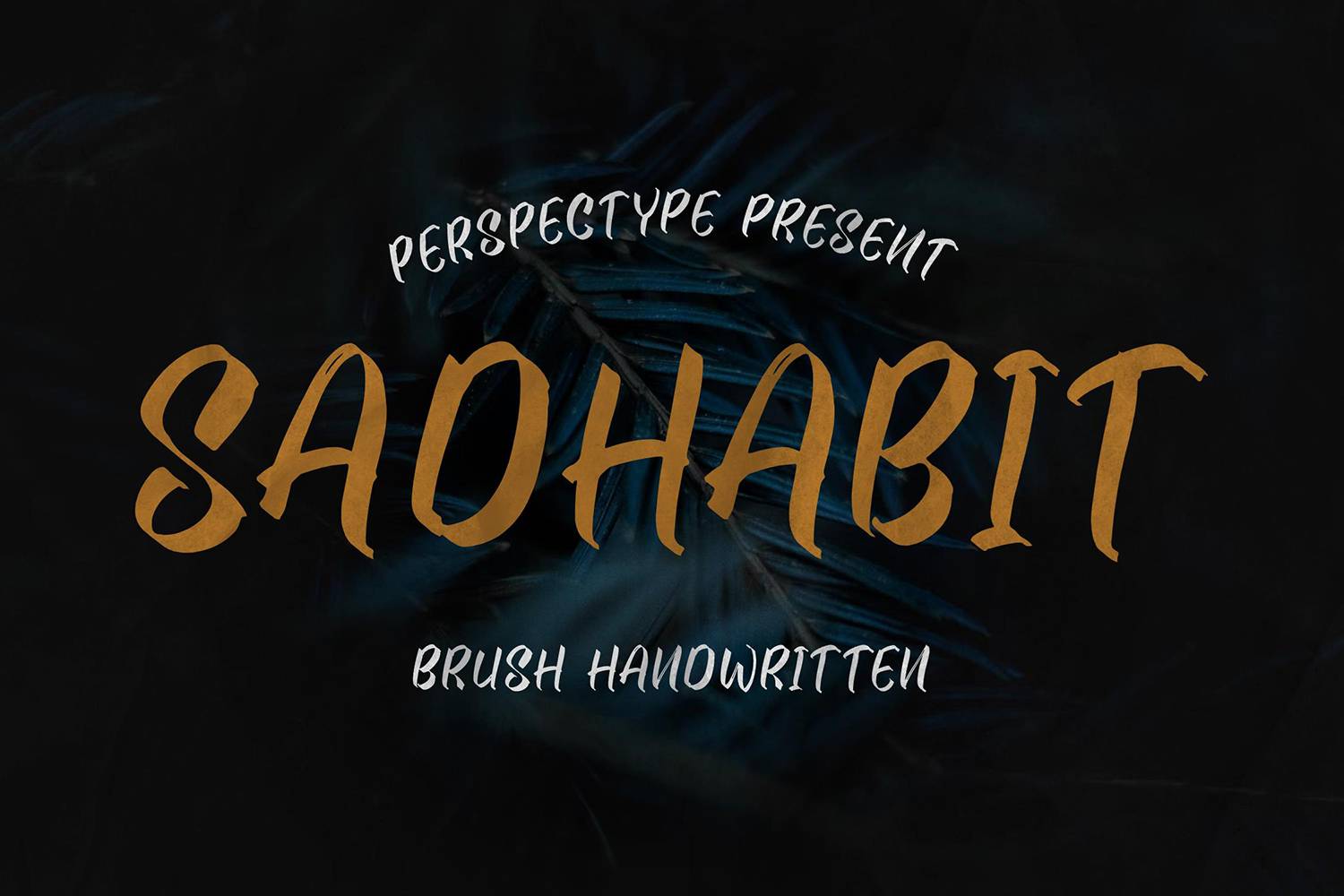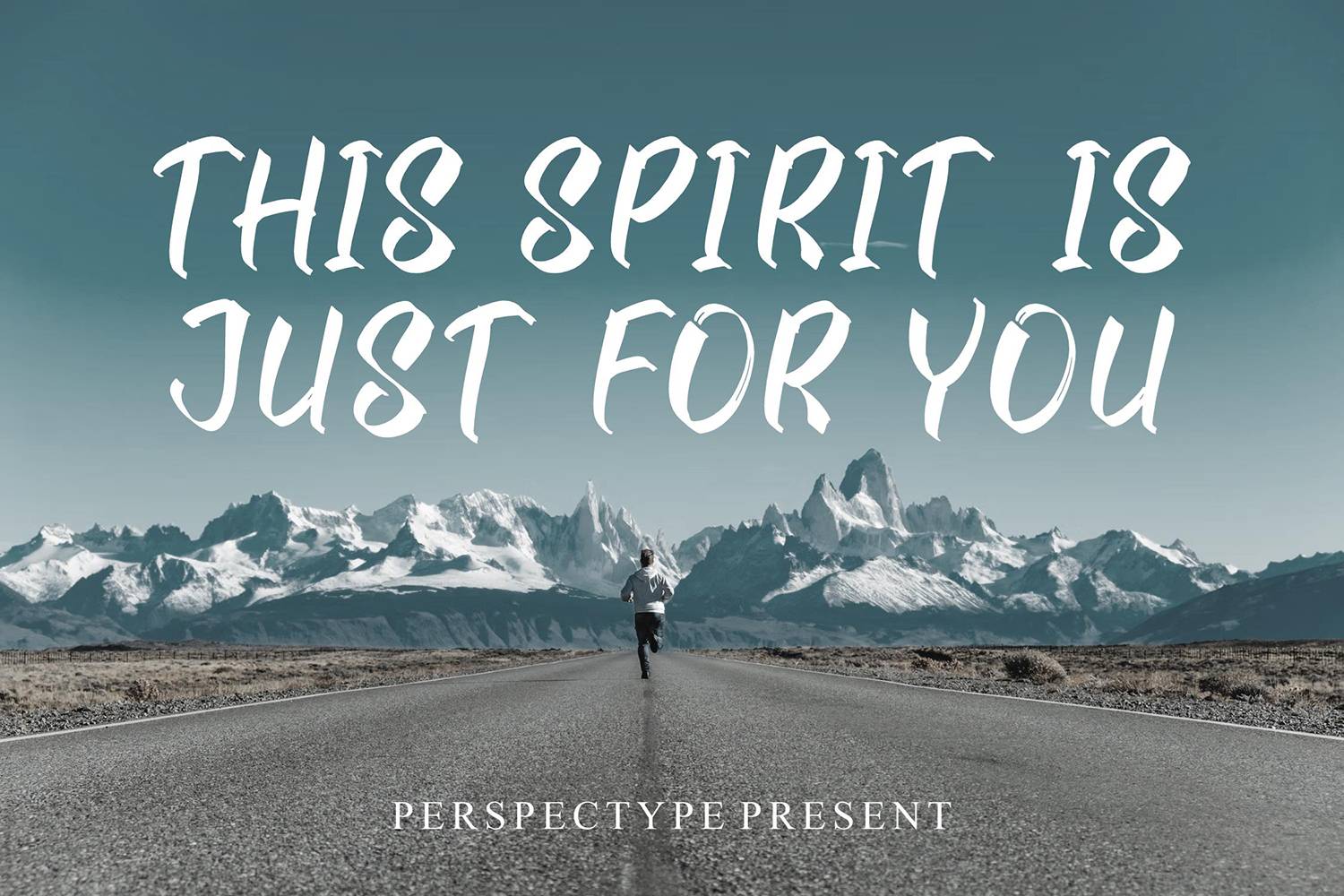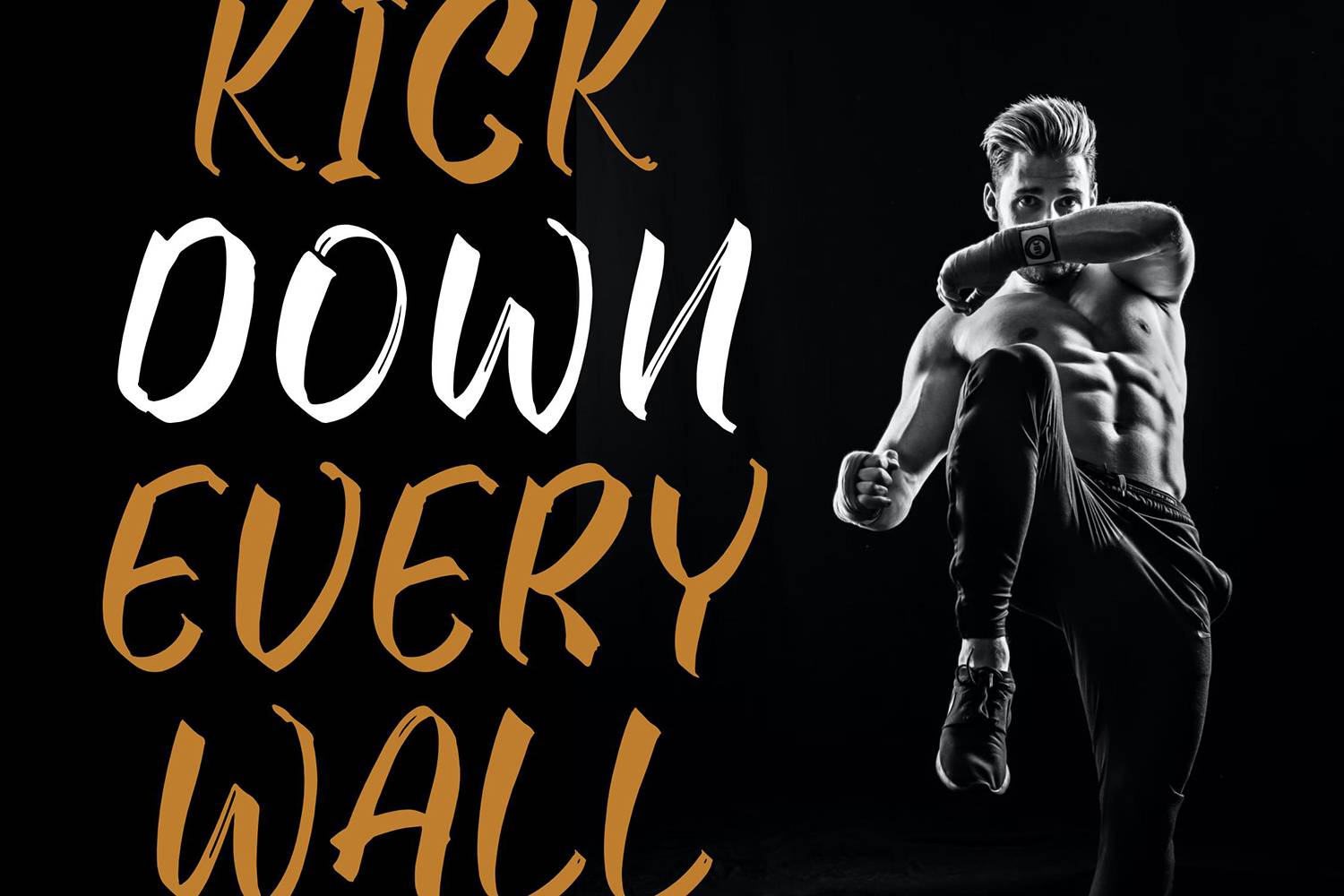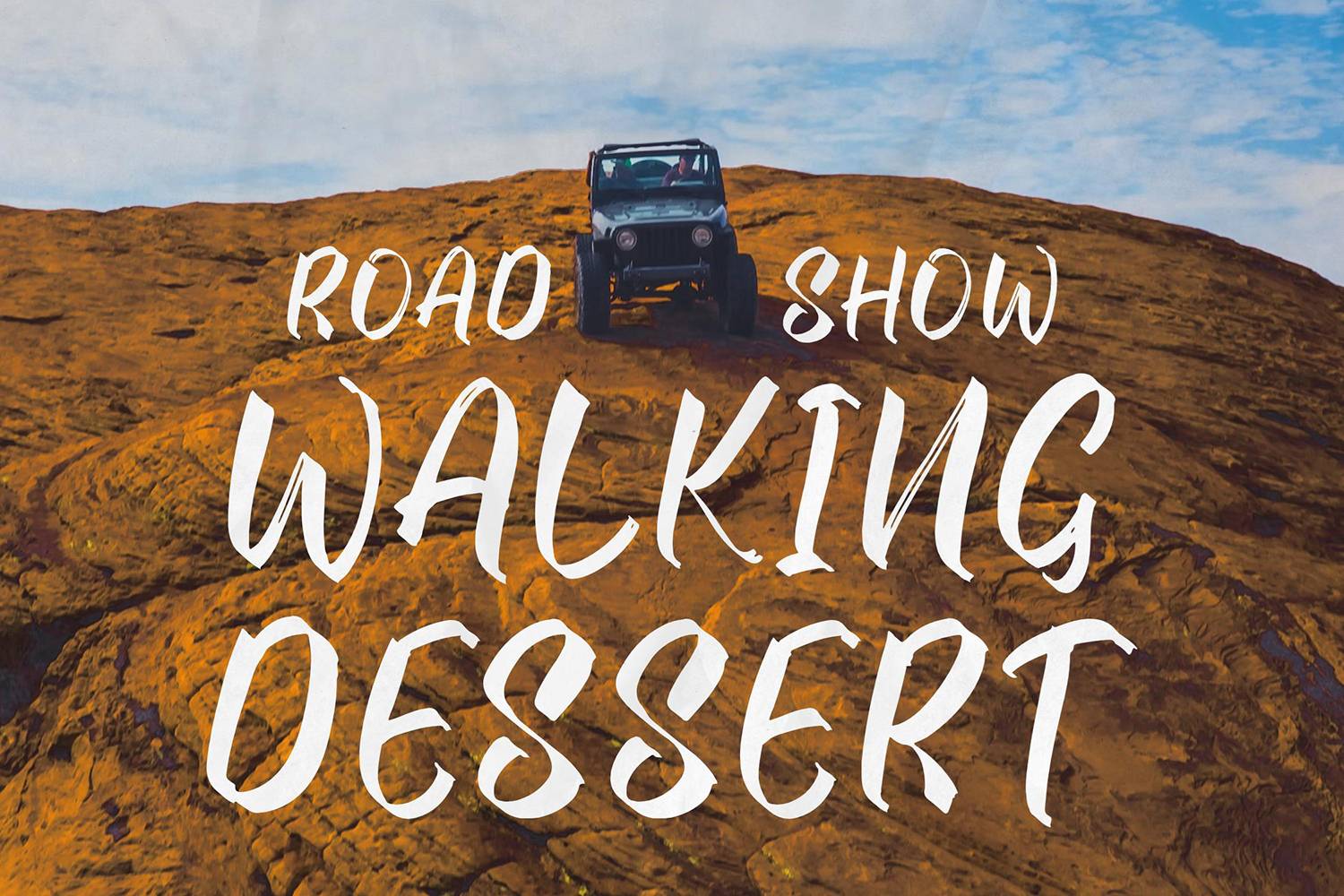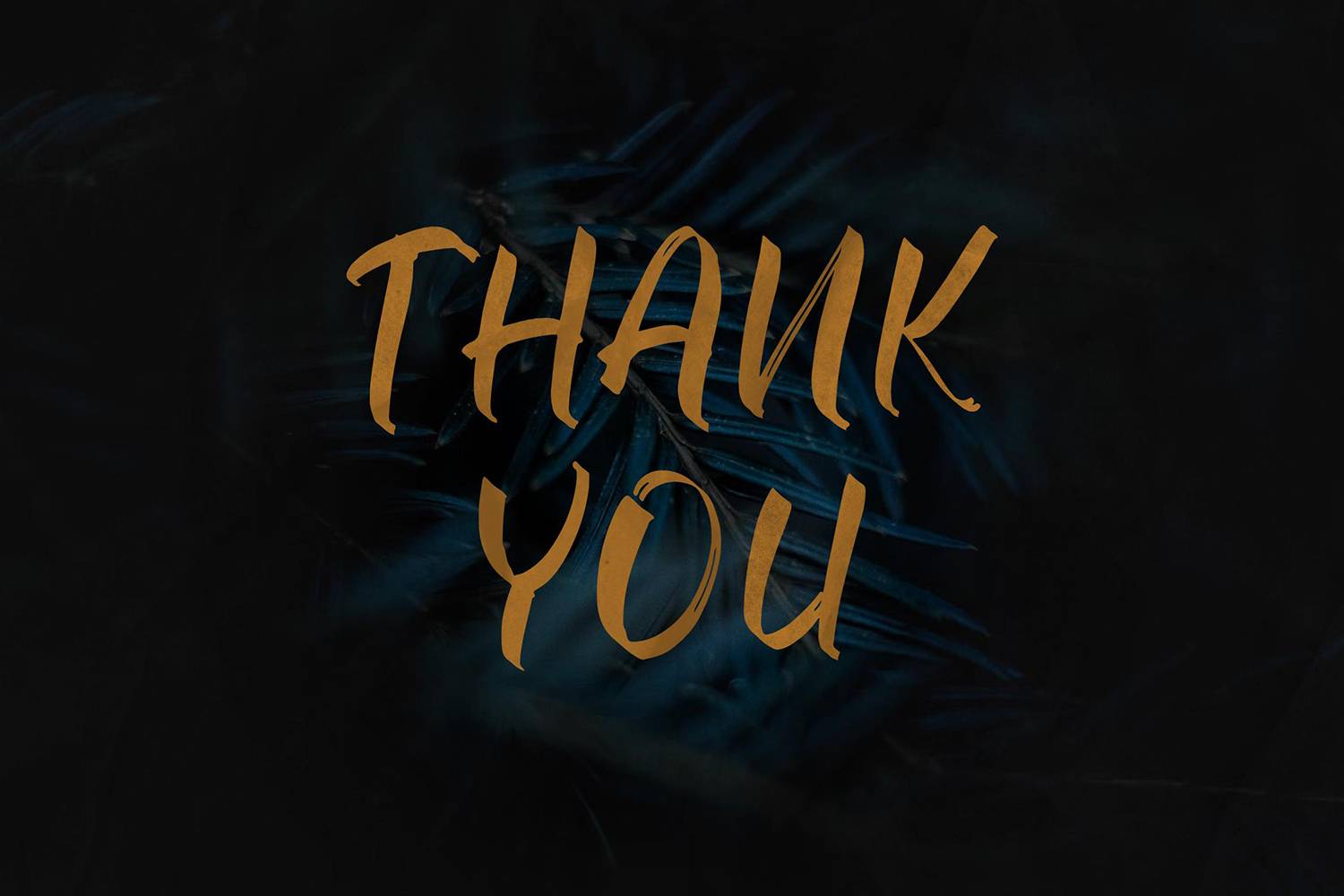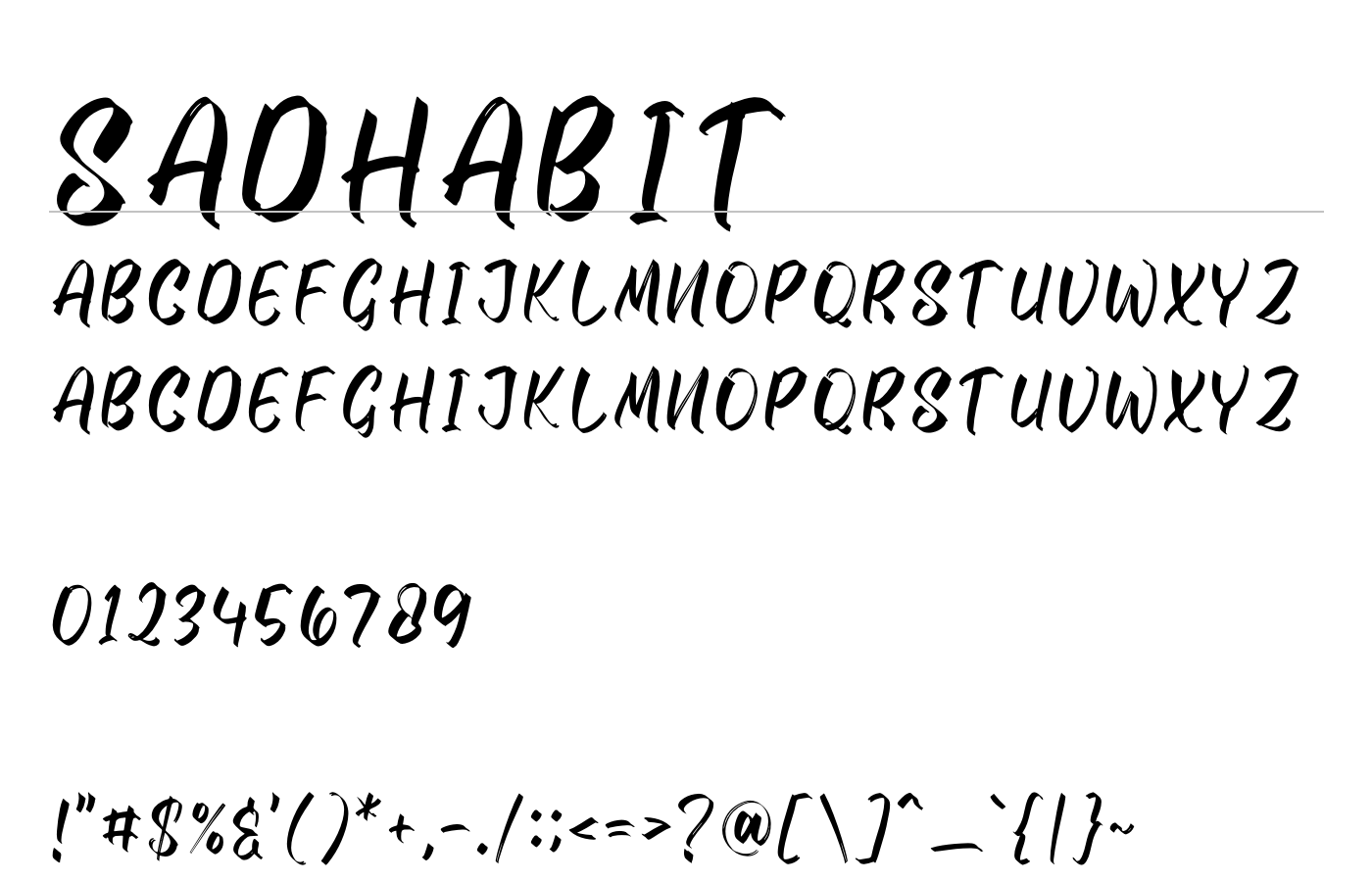
Sadhabit is a dynamic script font with a lively, brush-stroke feel that balances playful energy and a handcrafted touch. Its moderately condensed letterforms and medium contrast strokes give it a casual yet refined personality, making it ideal for creative branding, modern packaging, and eye-catching headlines. This font works best where a stylish, approachable look is desired, adding a sense of artistic flair and friendliness.
Sadhabit Font